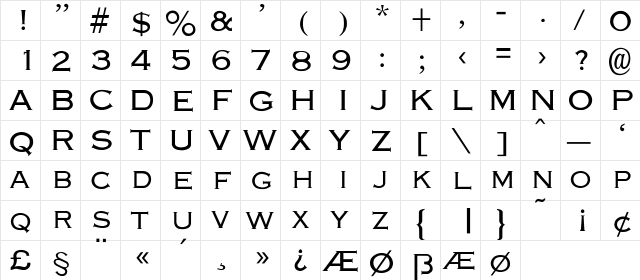
Engraver-Light Regular
Engraver-Light takes a measured approach to typography — its balanced proportions and neutral character make it a reliable workhorse for both digital and print work. Its slender proportions lend an understated elegance to any composition.